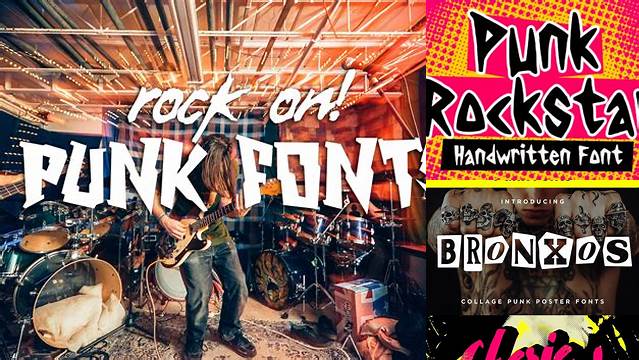
Pop Punk Fonts: Free Downloads For Your Designs
Hey guys! Ready to inject some serious attitude into your designs? If you're a fan of catchy melodies, energetic shows, and the rebellious spirit of pop punk, then you know that the right font can make all the difference. It's the visual equivalent of a power chord, a screaming chorus, or a killer guitar riff. Finding the perfect pop punk font free can feel like striking gold. That's why we've put together a guide to some of the best free pop punk fonts out there, perfect for everything from band logos and album art to gig posters and merch. Get ready to turn up the volume on your designs! This article explores how to find the best fonts and where to find these fonts.
What Makes a Font Pop Punk? The Vibe Check
So, what exactly defines a pop punk font? It's all about capturing that unique blend of angst, energy, and a touch of playful rebellion. Think of it as visual shorthand for the genre. These fonts often incorporate certain stylistic elements, but generally, they tend to have these characteristics:
- Grungy and Distressed: A little bit of roughness adds to the raw, DIY feel that's core to pop punk. Think splatters, scratches, and uneven edges.
- Bold and Impactful: Pop punk is all about making a statement. Fonts need to grab attention and be easily readable, even from a distance.
- Handwritten or Script Styles: These add a personal touch and evoke the feeling of a band creating its own artwork. Handwritten fonts can look like they've been scrawled across a notebook, while script fonts bring an edgy elegance.
- Energetic and Dynamic: Avoid anything that feels static or boring. Pop punk fonts should have a sense of movement and vitality, reflecting the music's fast pace and high energy.
- Playful and Edgy: The best pop punk fonts walk the line between fun and rebellious. Think a hint of sarcasm, a dash of irreverence, and a whole lot of attitude.
Many fonts are influenced by album art, band logos, and gig posters of iconic bands. The pop punk movement has a strong visual identity, and fonts are a critical part of that. When selecting a font, consider the overall message you want to convey. Does the design require a rebellious edge, or do you need something that feels more playful? Is readability a top priority, or can you prioritize aesthetics? This will help guide your decision-making process. Pop punk is all about breaking the rules, so don't be afraid to experiment and find what works best for your unique style. Consider these points to find the most appropriate font. Finding pop punk font free to reflect your inner punk rocker is not an easy task, so let us help!
- BeFonts: BeFonts is a great platform to search for free fonts with a curated collection of high-quality fonts. You can find fonts that have specific tags and styles that might suit your purpose. BeFonts is the best choice for beginners.
- Behance and Dribbble: These creative platforms are filled with designers sharing their work, including free font downloads. Search for 'free font' or 'pop punk font' to find custom creations and font bundles. Often, these include a variety of styles to fit your needs.
- Individual Designer Websites: Many font designers offer their fonts for free or for personal use. Check out websites of designers that you admire, and see if they have any freebies available. Sometimes, you have to register or share to receive the font.
When downloading fonts, always be mindful of the licensing agreements. Some fonts are free for personal use only, while others allow commercial use. Also, make sure the font is from a reliable source to avoid any malware. This will help you avoid any issues that could come with a poorly-sourced font. So you have to be very careful when looking for a pop punk font free download.
Tips for Using Pop Punk Fonts Like a Pro
Once you've found the perfect pop punk font, it's time to put it to work! Here are some tips to make your designs really pop:
- Pairing Fonts: Don't be afraid to mix and match fonts. Try combining a bold, grungy headline font with a cleaner sans-serif font for the body text. This can create a visually dynamic and balanced design. Experiment with fonts that have the same style for harmony. The goal is to create a design that is easy to read and conveys the core message of the content.
- Color Palette: Colors play a huge role in setting the tone. Bold, contrasting colors like black and white, red and yellow, or neon shades are very popular in pop punk designs. Consider a complementary or analogous color scheme.
- Layout and Composition: Think about the overall layout of your design. Use strong visual hierarchy to guide the viewer's eye. Play with different text sizes, spacing, and alignment to create visual interest. If possible, use images to complement the text, and use them to enhance the overall message.
- Effects and Distressing: Add some extra edge with effects like drop shadows, outlines, or textures. You can also use distressed textures to create a grungy feel. Many programs will allow you to modify the font, so you can experiment and see what fits best.
- Keep it Readable: While it's important to embrace the rebellious spirit of pop punk, always prioritize readability. Avoid using fonts that are too difficult to decipher, especially for large blocks of text. If you are unsure about readability, test it out before applying it to a project.
By following these tips, you can create pop punk designs that look amazing. Don't be afraid to experiment and have fun with it! Finding the perfect pop punk font free is just the beginning. Embrace the chaos, the energy, and the attitude of pop punk, and let your designs scream with authenticity.
Pop Punk Font Examples: Inspiration Galore
To get your creative juices flowing, here are some examples of popular font styles that are commonly used in pop punk designs:
- Impact: A bold, condensed font with a strong presence, perfect for headlines and logos. Impact is an excellent option for those who want an easy-to-read and loud font style.
- Streetwear: This font includes a strong, clear, and confident style. This is a good option for those who want a font that can convey a clear message.
- Rockness: With a strong style, this is a good option for those who are looking for a font that can be used for many purposes.
- ChunkFive: This is a slab serif font with a rugged look. Its heavy weight and slightly distressed texture make it ideal for headlines and titles.
- Permanent Marker: A handwritten font that mimics the look of a marker. This font is good for those looking for a more personal and authentic touch.
- Dirty Headline: This font is known for its grunge and distressed style, which is perfect for those who want to achieve a rebellious, punk-inspired vibe.
- Blackletter: A traditional gothic font, often used to create a vintage, punk-inspired look. If you want a font with a unique, vintage style, this font is a good option.
These are just a few examples, and the possibilities are endless. Explore these styles and see how they can elevate your designs. Consider the overall design and message to make sure that the font is the correct one. When creating a design, remember that it is all about experimentation. So don't be afraid to use these styles and combine them to find the perfect combination.
From Pixels to Print: Pop Punk Fonts in Action
Pop punk fonts are incredibly versatile and can be used in various creative projects. Here's a glimpse of how these fonts can be applied:
- Band Logos: Create a memorable visual identity for your band with a custom logo that captures your style. Using a unique font can instantly identify a band, and it is one of the most critical components of a logo design. Think about the overall message you want to send to the audience and find a font that reflects that.
- Album Art: Design album covers that instantly grab attention with a bold and impactful font choice. Album art can include images, fonts, and colors. It is a great way to convey the message and feel of a band. Finding the correct font will make all the difference in an album cover design.
- Gig Posters: Promote your shows with eye-catching posters that make fans excited. Gig posters are a great way to spread the word about an upcoming show. With a memorable font and image, posters can instantly make a difference and draw more crowds to the venue.
- Merch Designs: Create cool t-shirts, hoodies, and other merchandise that fans will love. Merch designs will require a font that is easy to read and looks good on various products. If you are creating a merch design, consider different styles and layouts to see what best fits the product.
- Website and Social Media Graphics: Use pop punk fonts to add personality to your online presence. You can enhance your website and social media graphics. Use it to create custom graphics and other designs that promote the band. Make sure the font is easily readable, regardless of the size and display type.
From the digital world to physical products, pop punk fonts can make a big impact. The ability to use a pop punk font free that resonates with the band's brand can be powerful.
Conclusion: Unleash Your Creative Fury
So, there you have it, guys! A deep dive into the world of pop punk fonts, with plenty of resources and inspiration to get you started. Remember, the key is to experiment, have fun, and let your designs reflect the raw energy and rebellious spirit of pop punk. With the right font, you can create designs that scream with attitude. Go forth, create, and make some noise! Finding a pop punk font free is a game changer! So what are you waiting for?